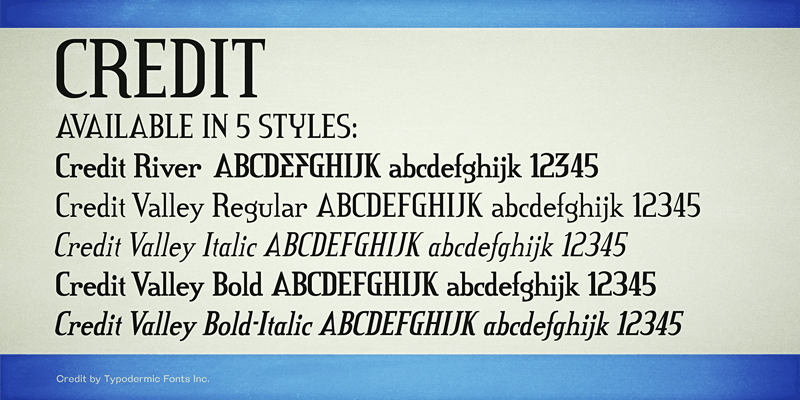
Credit is a postmodern serif font family. These fonts include a license that allows free commercial use: sometimes referred to as a desktop license. This allows you to install the fonts on a computer and use them to create posters, web graphics, game graphics, t-shirts, videos, signs, logos and more. Read the license agreement for details. If you'd like to embed these fonts in an app, ebook, on the web or anything that's not covered by the desktop license agreement, visit the link below. You'll find distributors who offer different types of licenses or you can contact me for help. http://typodermicfonts.com/credit/ |